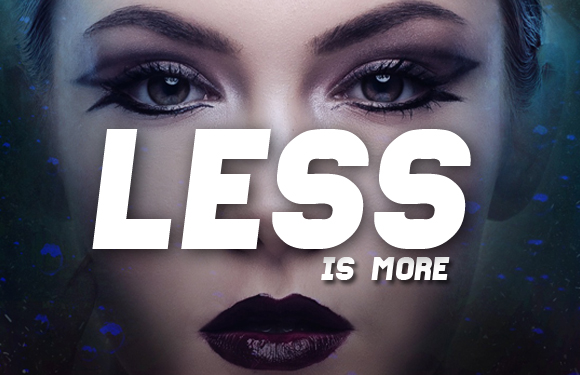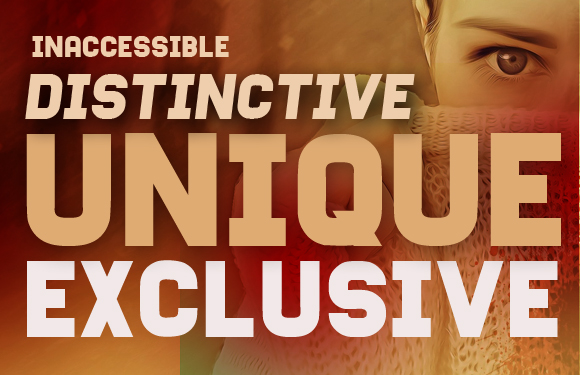
The Fixation Font: A Designer’s Dream Come True
I’ll never forget the time I was working on a project for a client who needed a bold, eye-catching font to make their headlines pop. I had spent hours scouring the internet for the perfect font, but nothing seemed quite right. That was until I stumbled upon the Fixation font. It’s been a game-changer for me ever since. In this article, I’ll share my experience with Fixation, its amazing features, and how to get the most out of this incredible display font.
An Honest Review of Fixation Font
What I Love About Fixation Font
- ✨ Versatility: Fixation comes in different style options, making it perfect for various design projects, from print to digital applications.
- ✅ Readability: The font is incredibly clear and easy to read, even at smaller sizes.
- 💥 Impact: Fixation is designed to grab attention, making it ideal for headlines, titles, and other eye-catching elements.
- 🎨 Customization: With OpenType features and glyphs, you can customize Fixation to fit your design needs.
While Fixation is an amazing font, there are a few things to keep in mind:
- ⚠️ Limited use in body text: Due to its bold and attention-grabbing nature, Fixation might not be the best choice for body text or longer paragraphs.
- 🤔 Some characters may require manual kerning: As with any font, you might need to adjust kerning for certain character combinations to achieve optimal results.
The Backstory of Fixation Font
Fixation was designed with the goal of creating a bold, versatile font that could be used across various design projects. The designer aimed to craft a font that was not only visually striking but also highly legible. The result is a font that has become a favorite among designers and creative hobbyists alike.
Q: What is Fixation font best used for?
A: Fixation font is best used for headlines, titles, and other eye-catching elements in both print and digital applications.
Q: Does Fixation support OpenType features?
A: Yes, Fixation supports OpenType features, allowing for advanced typography and customization.